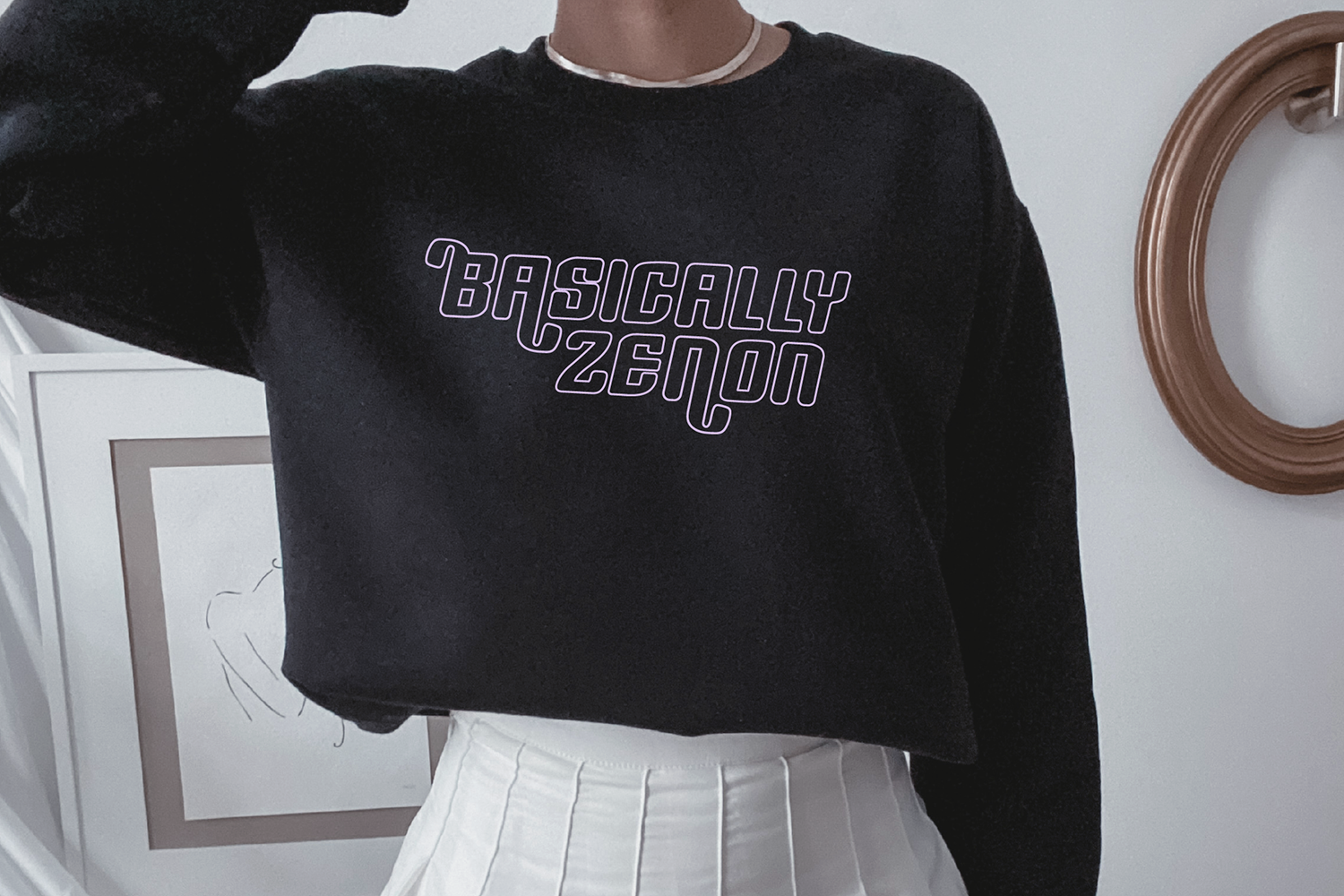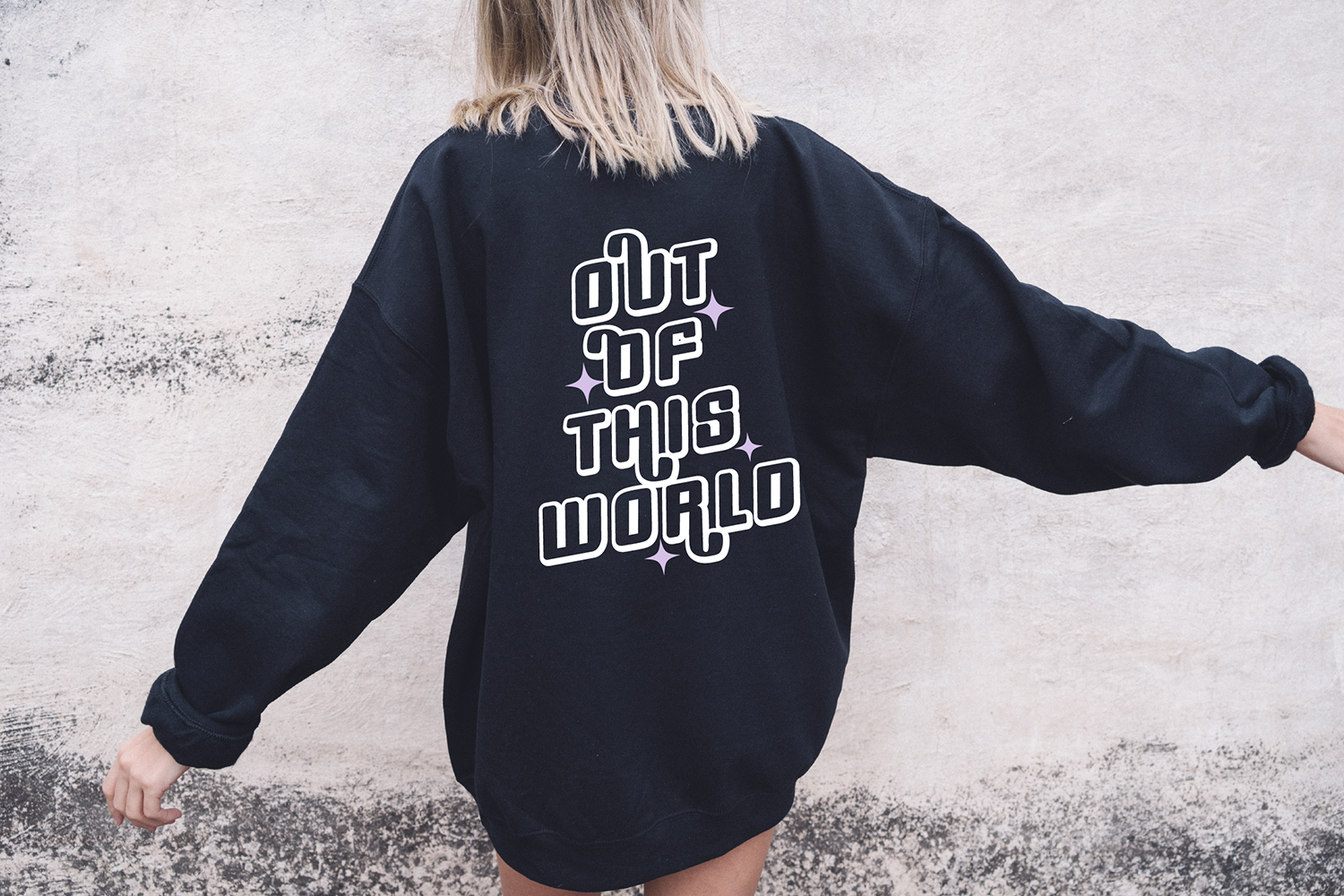
"GALAXY ROCK" a millennium-inspired trendy y2k font
3 VERSIONS INCLUDED: Regular, Outline and 3D.
This font is a trendy display font that is perfect for social media or crafty projects. Use it for branding, crafts for decor, t-shirts, and more! This font includes all caps glyphs, numbers, and punctuation marks.